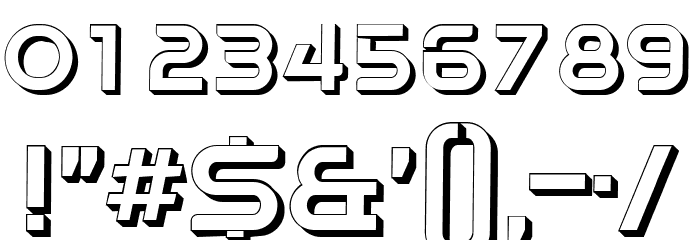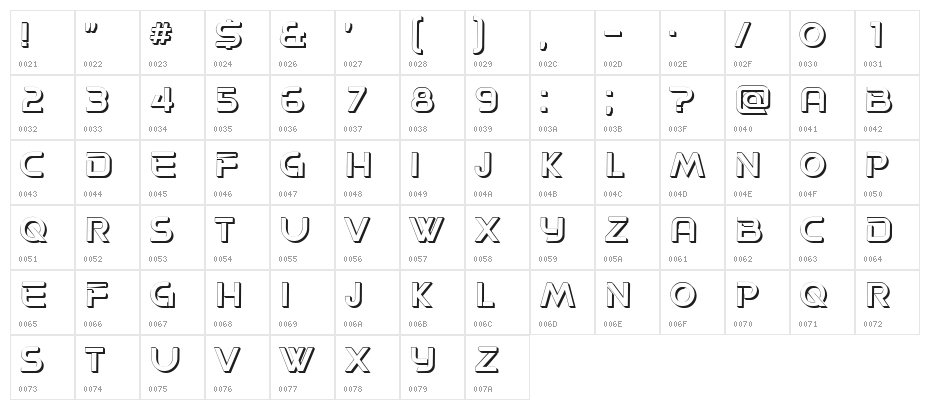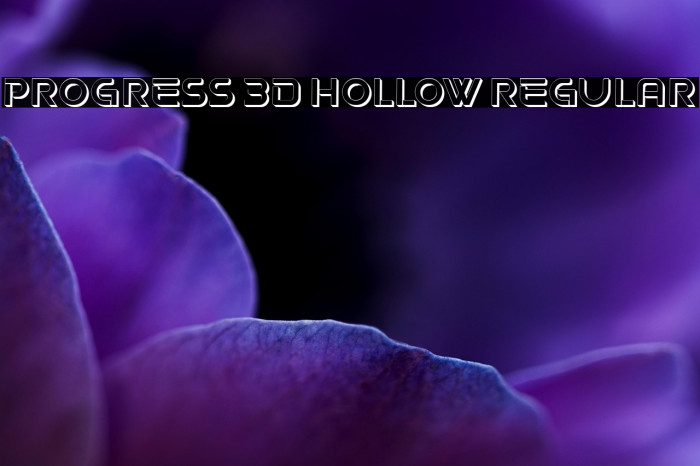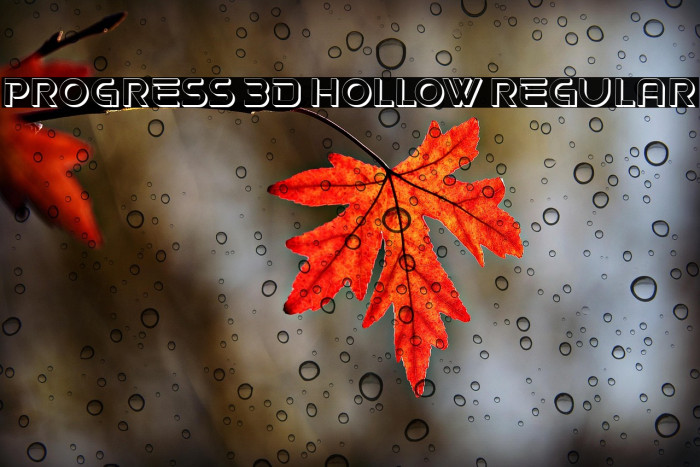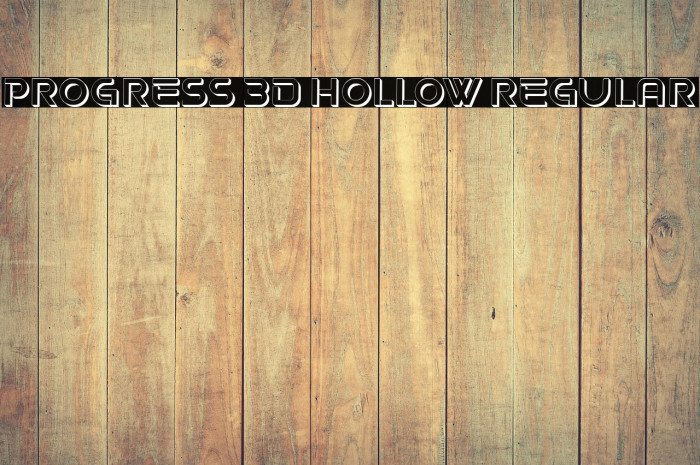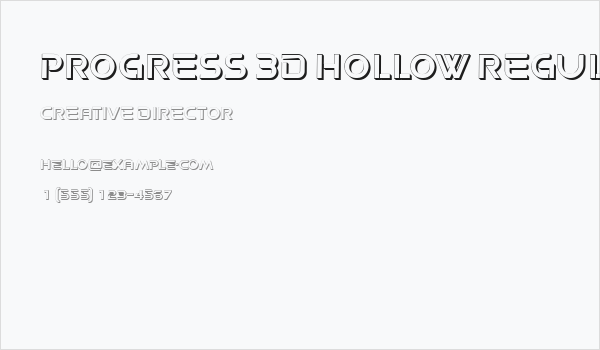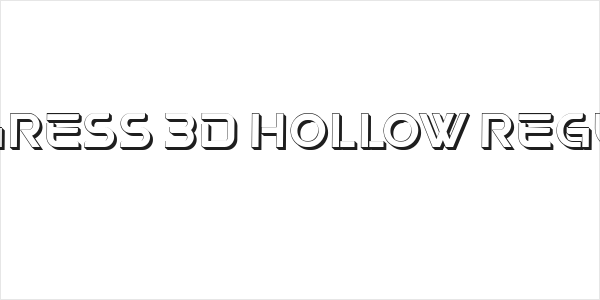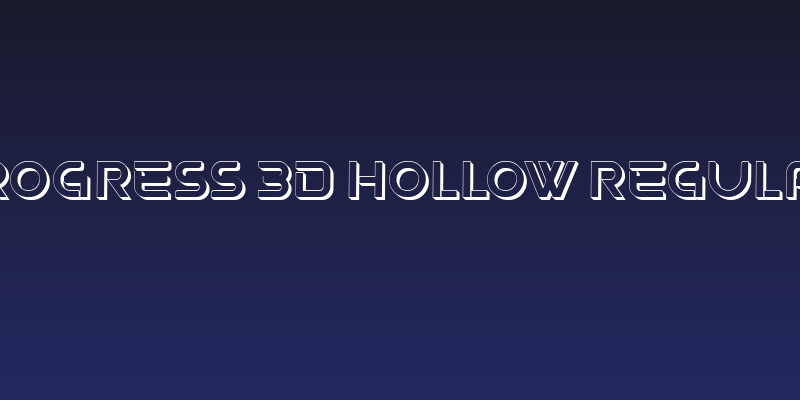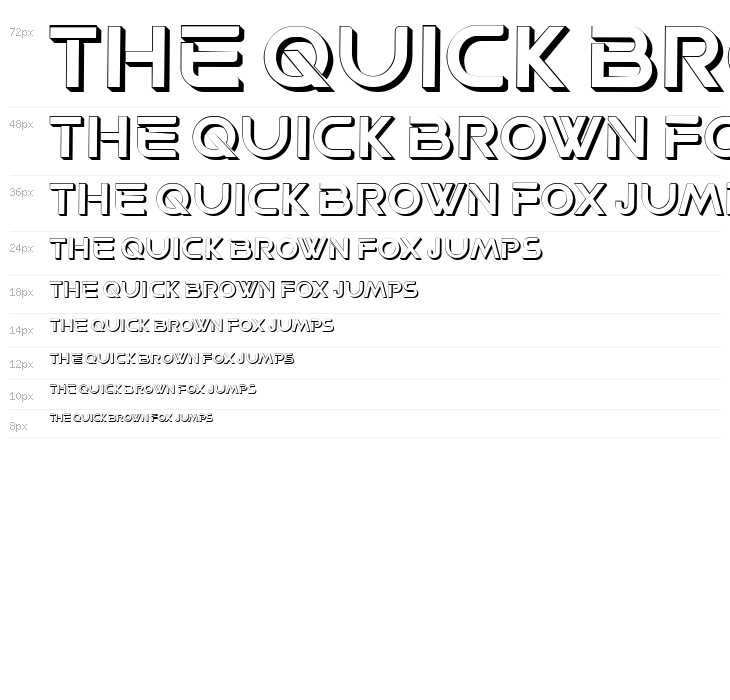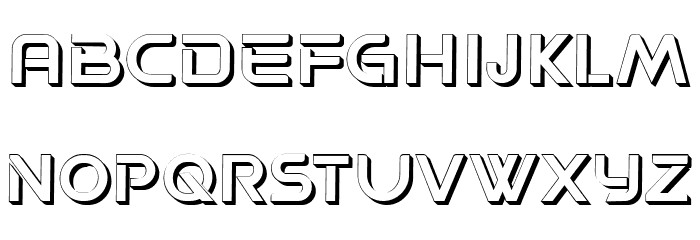
Progress 3D Hollow Regular Font
Progress 3D Hollow Regular Description
This font features a bold, three-dimensional hollow design that gives each character a striking and modern appearance. The letters are uppercase and exhibit a geometric style with clean lines and sharp angles, creating a sense of depth and dimension. The hollow effect is achieved through a consistent outline that forms the shape of each letter, while the interior remains open, enhancing the 3D illusion. This design is particularly eye-catching and suitable for making a strong visual impact. The numbers and special characters follow the same stylistic approach, ensuring uniformity across all glyphs. The font's unique style makes it ideal for projects that require a futuristic or tech-inspired aesthetic.
| Proposed Projects | Ideal for futuristic branding, tech-related posters, video game titles, and digital media. |